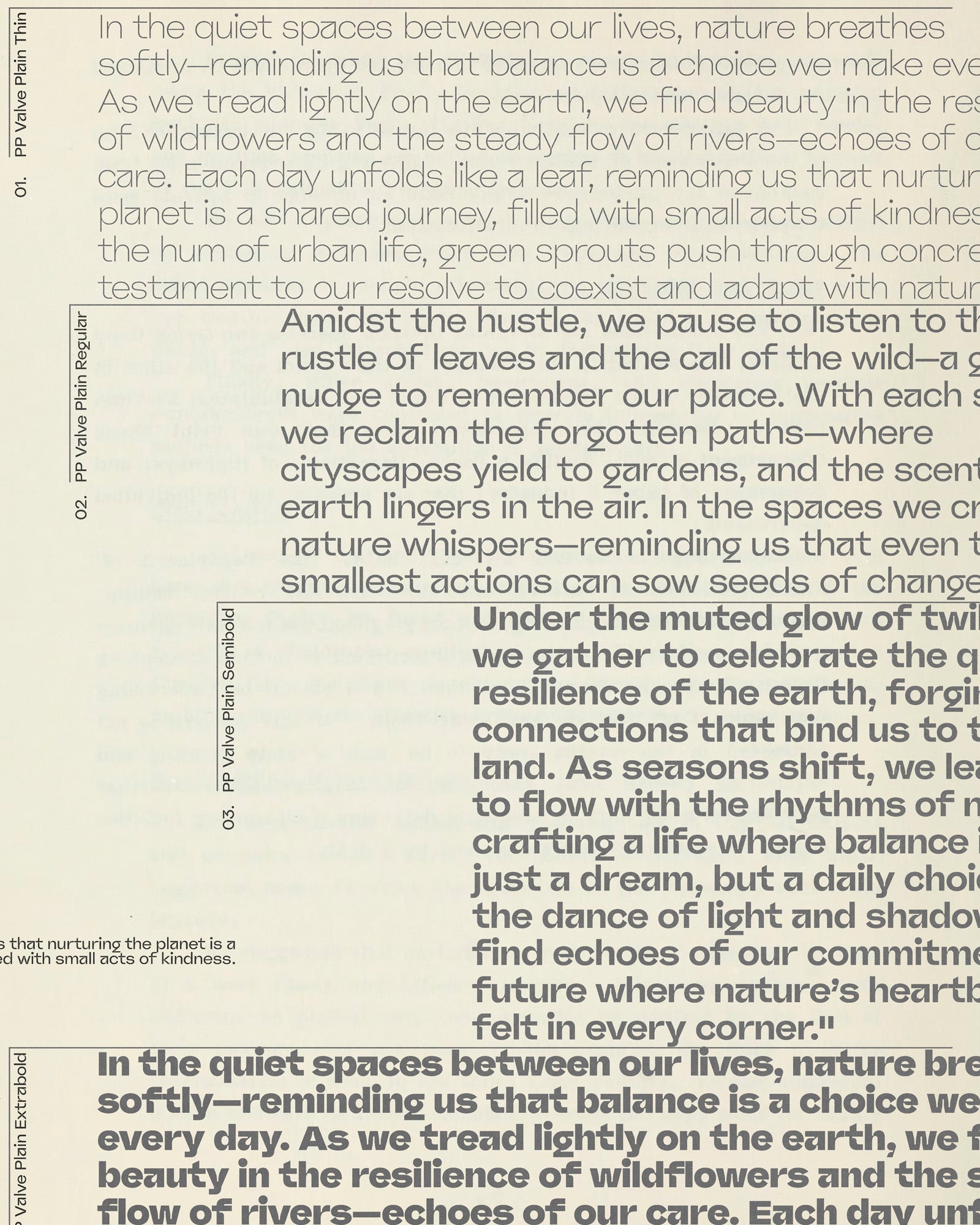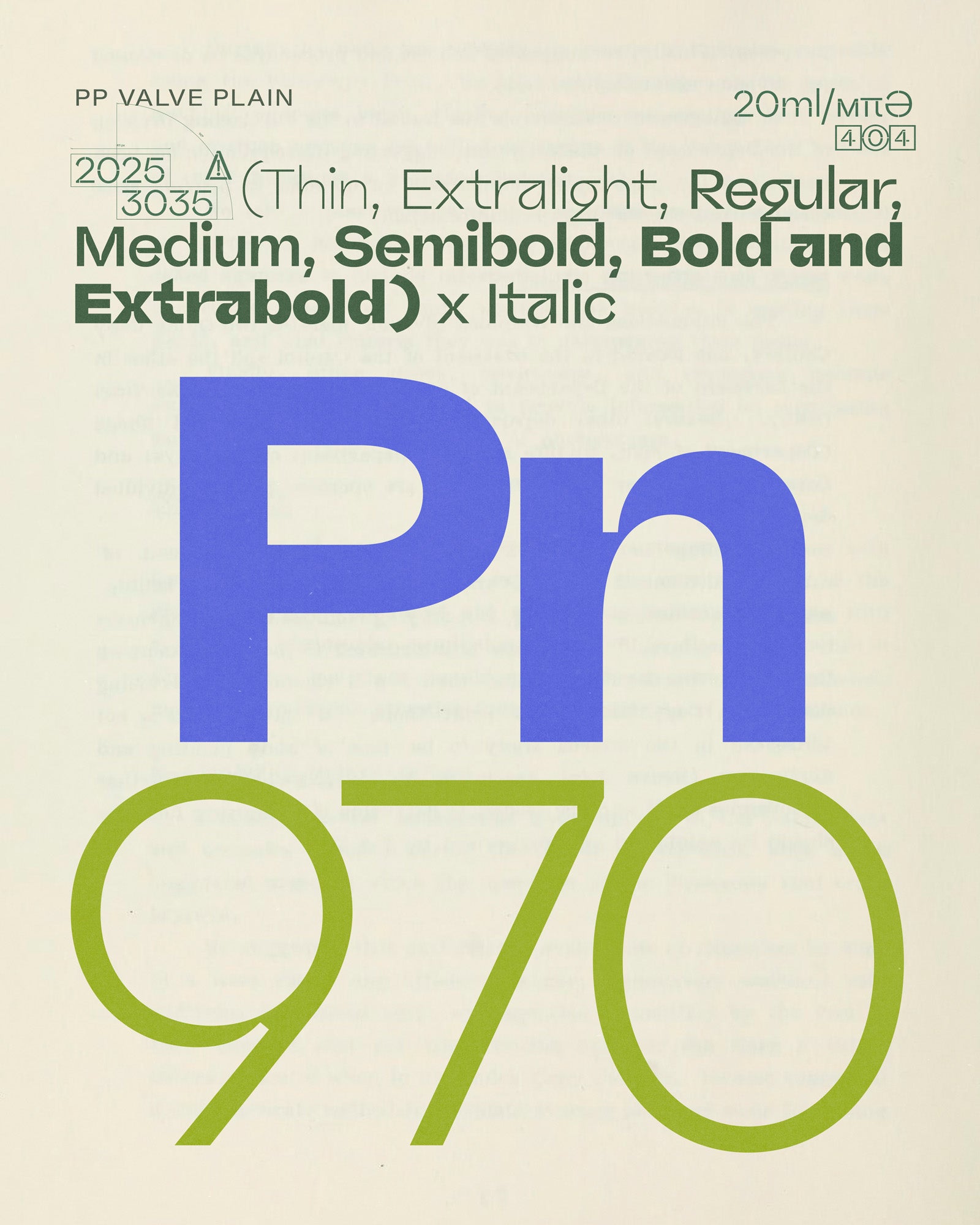
Valve Stencil
Defying conventional classifications.
Valve Stencil
Adaptable and dynamic.
Valve Stencil
Valve is a versatile typeface collection that blends grotesque, geometric, gestural, industrial, monospaced, and cursive sans serif styles into a unified, cohesive ensemble.
Valve Stencil
Valve Stencil's Features
Industrial Set
I J K R Y
Traditional Set
a f g y
Cursive Set
a f g i j k l s y
Symmetric Characters
Jj
→
Jj
Alternative Bowls
a b d g p q
Cursive Alternates
ijl
→
ijl
Diagonal Yy
Yy
→
Yy
Pressure Shapes Personality.
Valve is a versatile typeface collection that blends grotesque, geometric, gestural, industrial, monospaced, and cursive sans serif styles into a unified, cohesive ensemble. Defying conventional classifications, Valve provides a wide range of typesetting options through its two distinct families: an ink-trapped workhorse designed for excellent readability at small sizes, and a striking stencil companion that reveals the font’s modular structure and underlying design connections. Valve features three main stylistic sets—a blocky semi-monospaced variant, a familiar humanist style, and a lively cursive option—each showcasing unique contextual ligatures that adapt to tracking for smooth text flow in any combination.
With its adaptability and dynamic nature, Valve allows you to control and fine-tune the expressive qualities of your text, making it ideal for a variety of projects, from bold branding and impactful signage to refined editorial design.